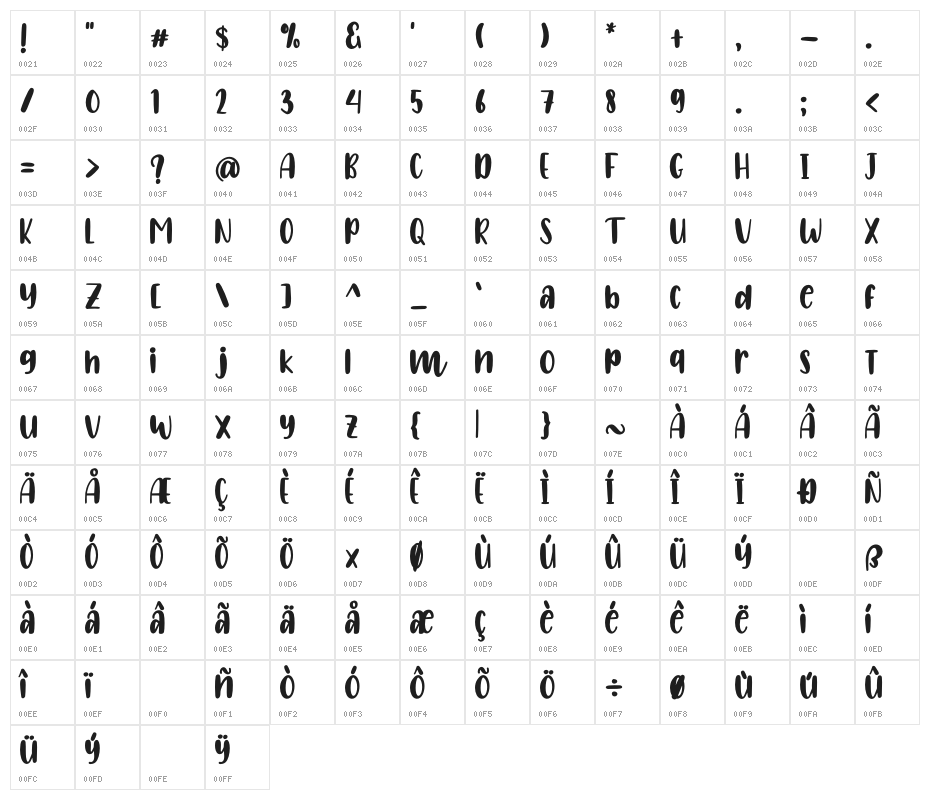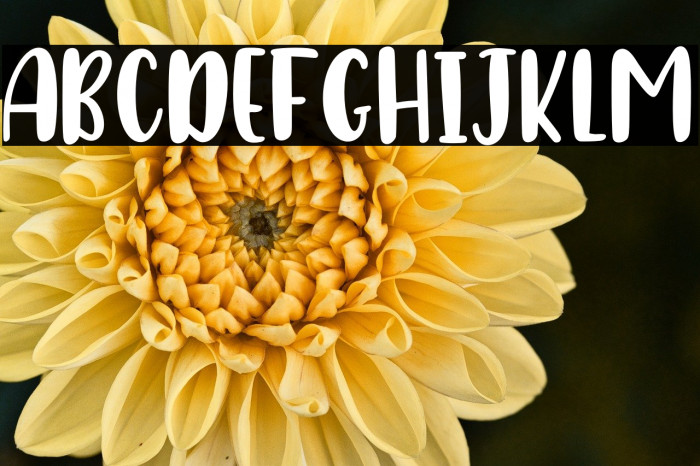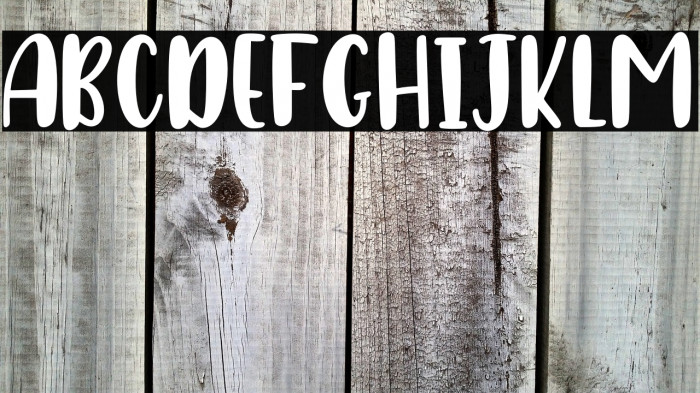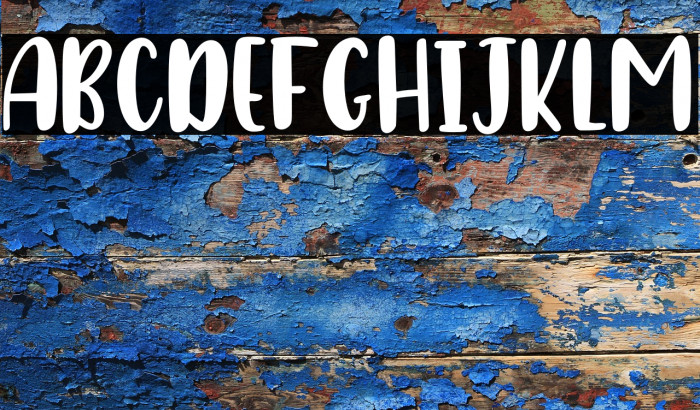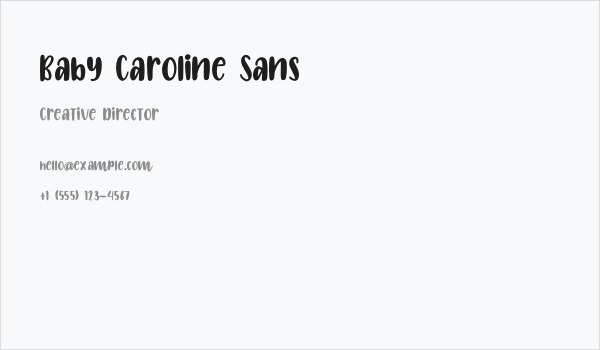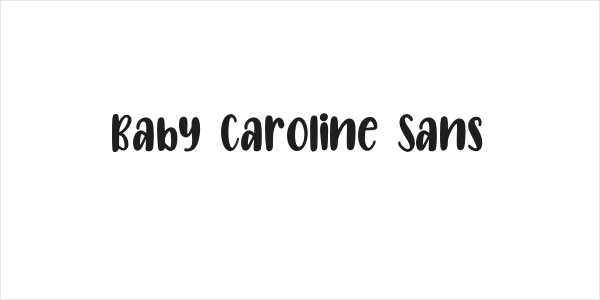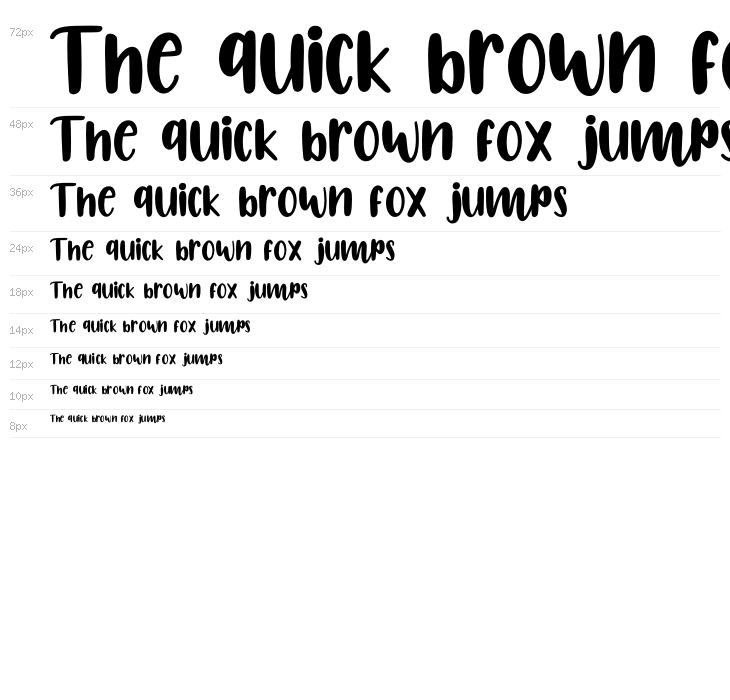
Baby Caroline Sans Font
Baby Caroline Sans Description
This playful and bold font features a handwritten style with smooth, rounded edges, giving it a friendly and approachable appearance. The letters are slightly condensed, with a consistent stroke width that maintains a uniform look across both uppercase and lowercase characters. The numbers and special characters follow the same design principles, ensuring a cohesive appearance throughout. The font's whimsical nature makes it ideal for projects that require a touch of personality and charm, such as children's books, playful branding, or creative invitations. Its boldness ensures readability, while the unique character shapes add a distinctive flair.
| Proposed Projects | Ideal for children's books, playful branding, creative invitations, and any project needing a touch of personality. |